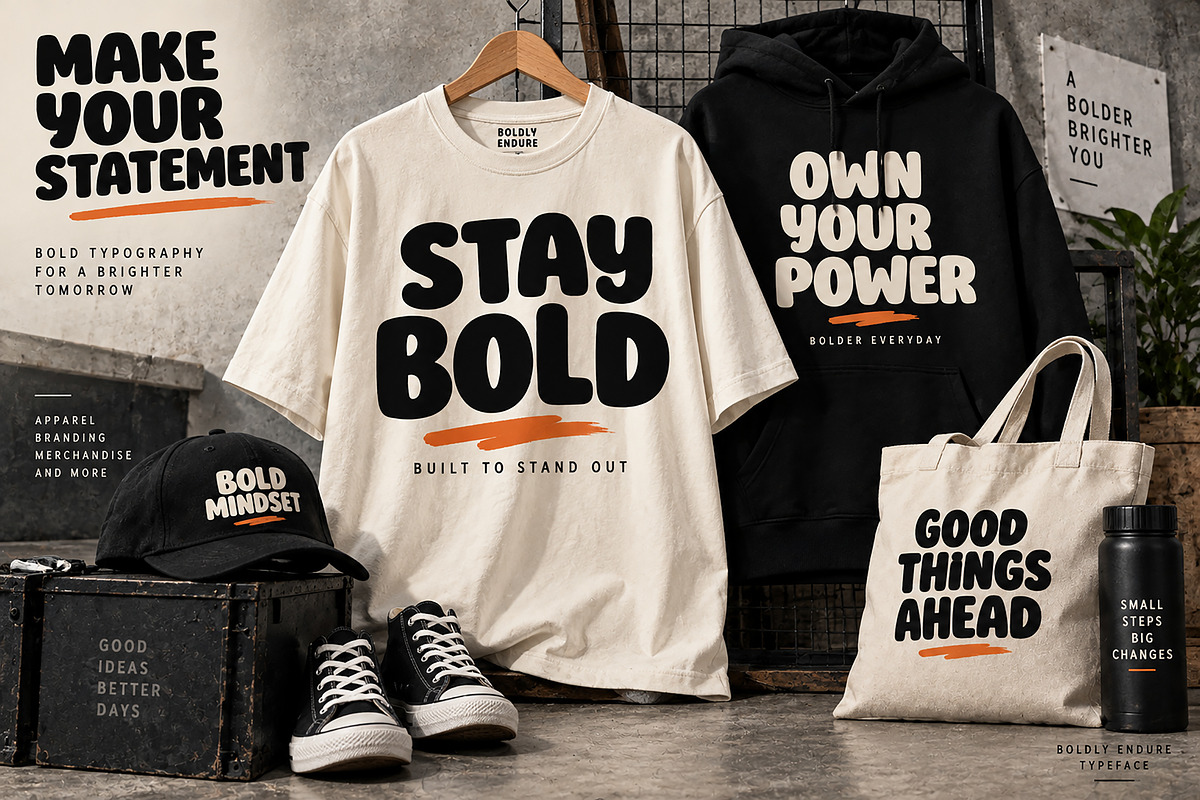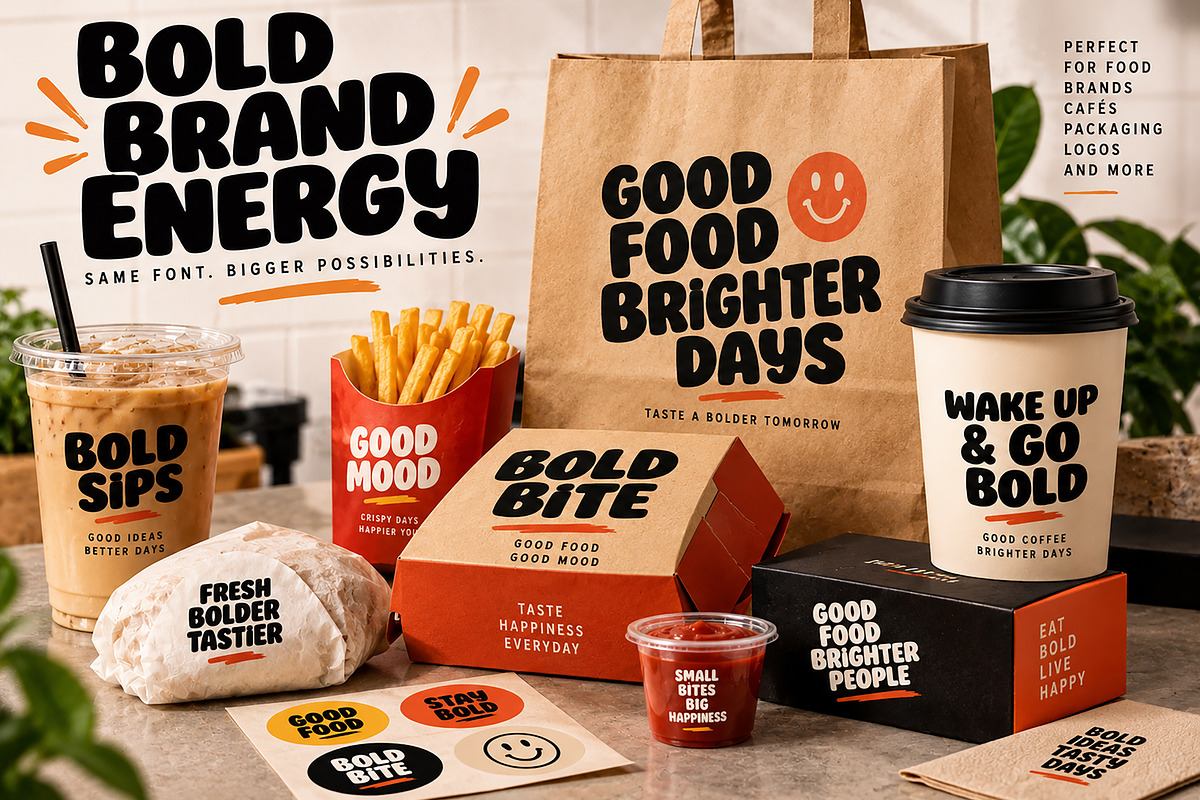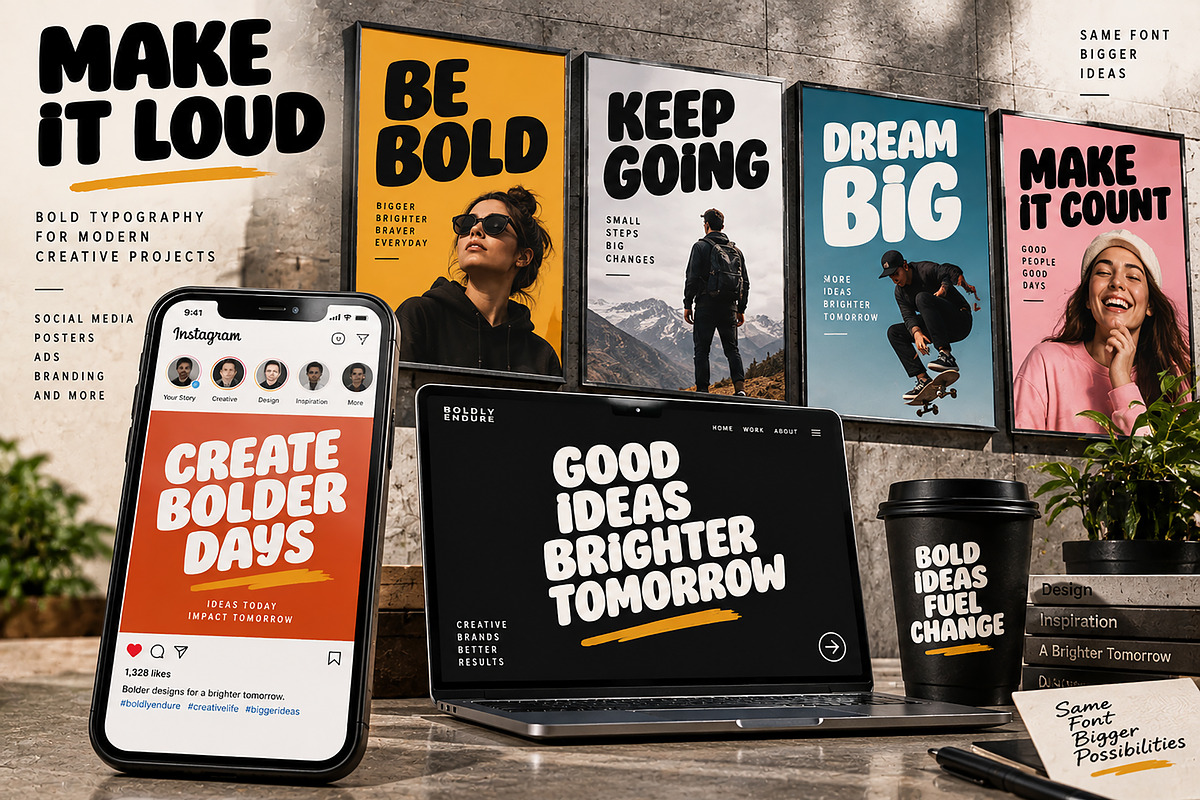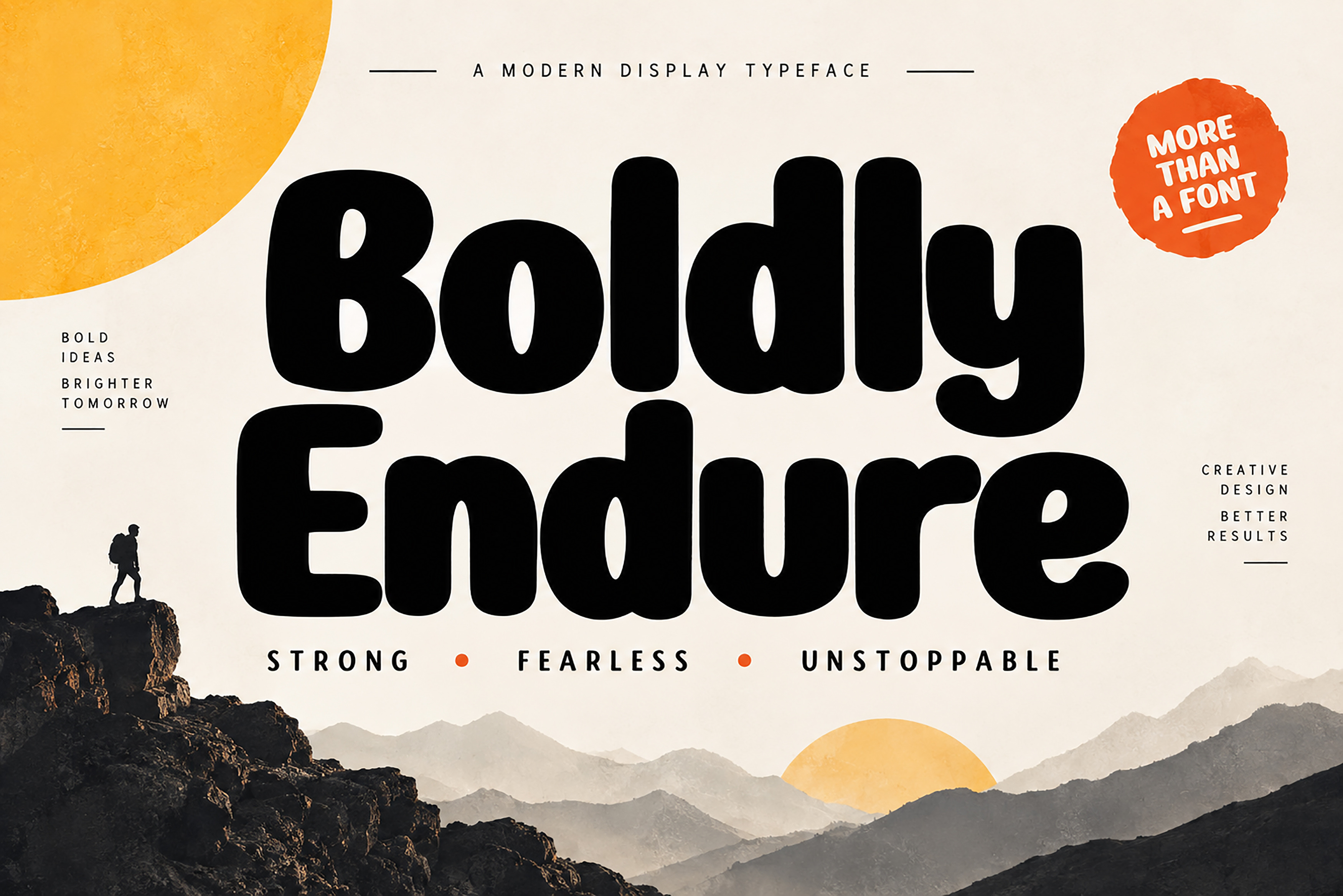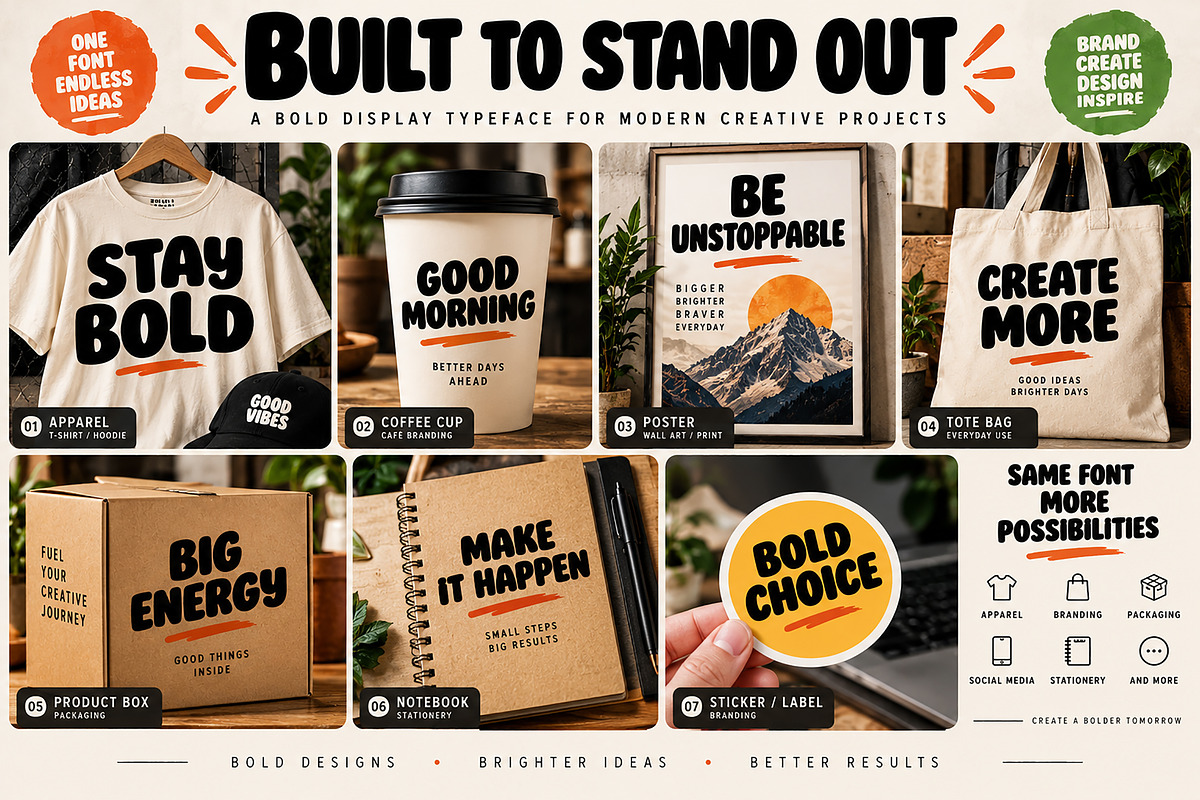
Boldly Endure _ Display Typeface
Boldly Endure is a bold, chunky display font designed to make your typography instantly stand out. Featuring heavy rounded letterforms, soft curves, and a strong playful personality, this typeface brings a confident and energetic look to modern creative projects.
Its powerful shapes work beautifully for logos, branding, apparel, posters, packaging, social media graphics, advertisements, merchandise, labels, stickers, stationery, headlines, and other eye-catching display designs.
Whether you're creating a bold streetwear graphic, an energetic brand identity, a modern poster, or standout packaging, Boldly Endure gives your designs a strong visual presence while maintaining a friendly and approachable character.
Logo & Brand Identity
Streetwear & Apparel
T-Shirt & Hoodie Designs
Posters & Advertising
Packaging & Product Branding
Café & Food Branding
Labels & Stickers
Editorial Headlines
Promotional Designs
Print & Digital Projects
Style: Bold Rounded Display Typeface
Boldly Endure — Make it bold. Make it memorable.